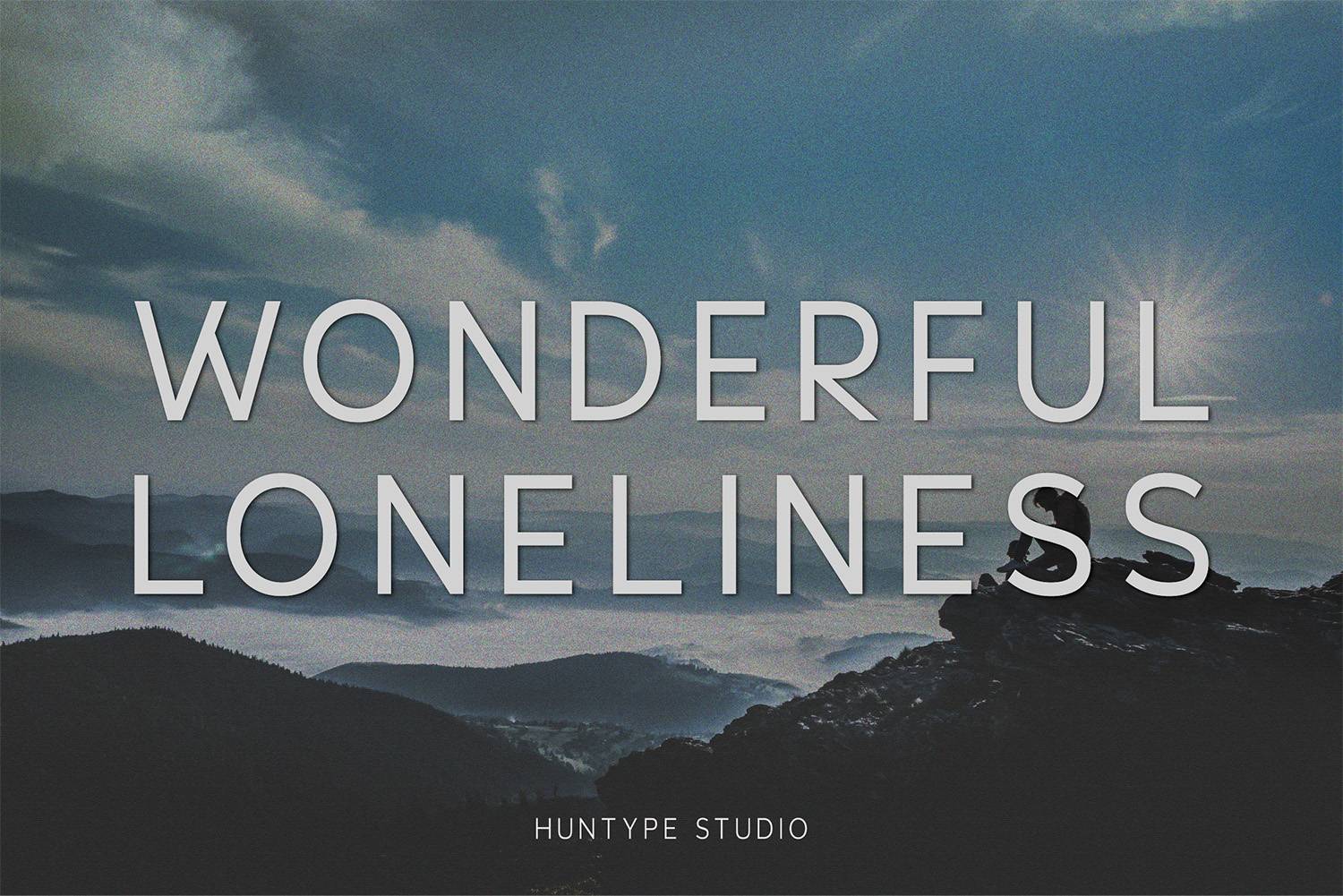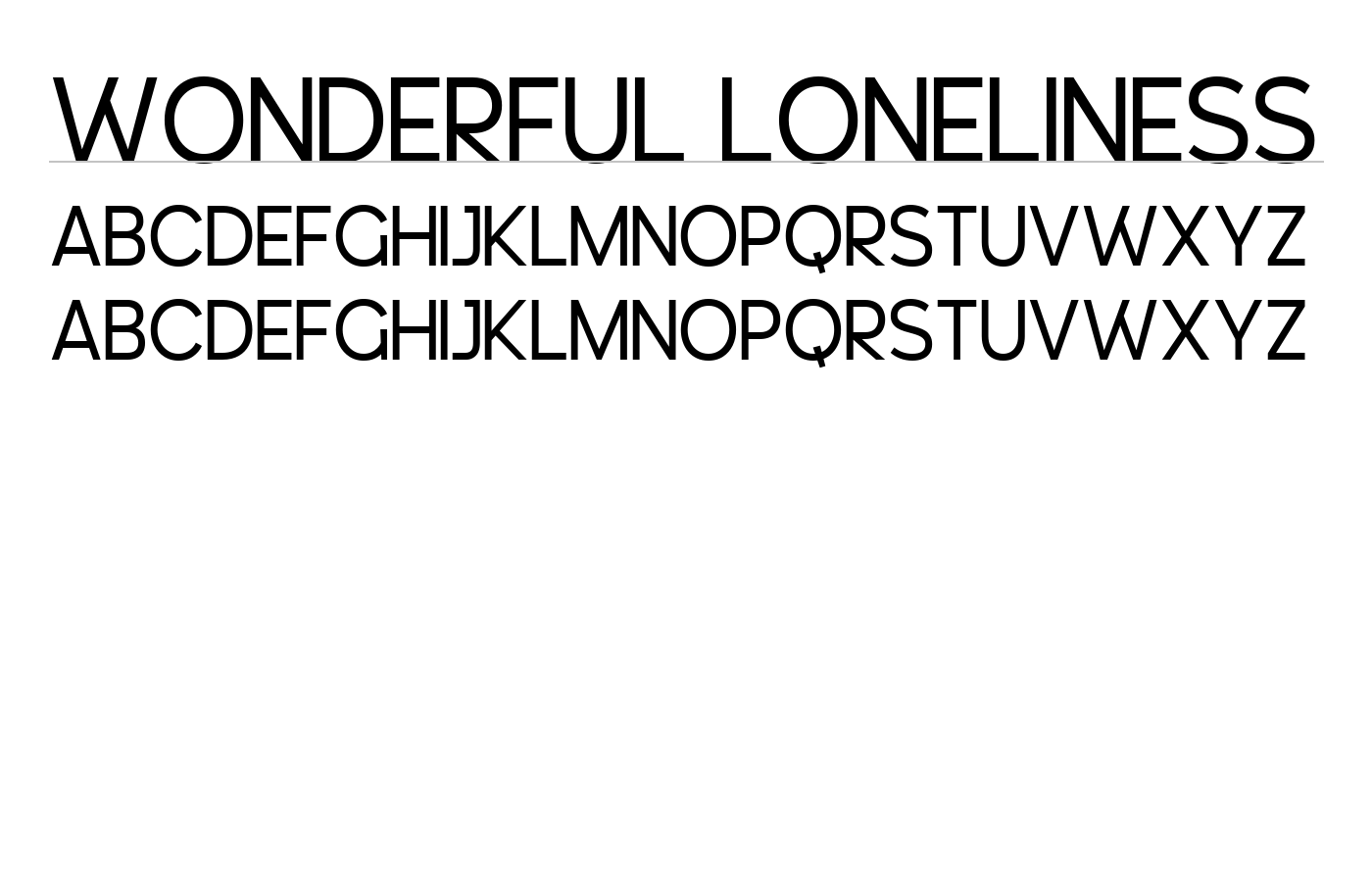
Wonderful Loneliness is a clean, modern sans serif font characterized by its tall, narrow letterforms and consistent stroke weight, giving it a sleek and professional appearance. Its high x-height and geometric shapes make it highly readable, while subtle details like the uniquely angled Q tail add a touch of personality. Ideal for contemporary branding, editorial headlines, and stylish web design, this font balances minimalism with distinctiveness for an elegant yet approachable look.
Wonderful Loneliness Font
About Wonderful Loneliness Font